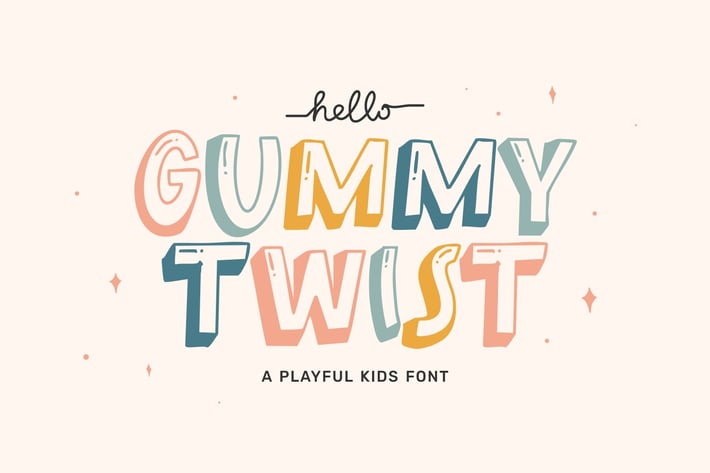
Gummy Twist - Hand Drawn Playful Font
GUMMY TWIST it’s got a hand drawn, playful vibe, specifically designed for children's projects. Think of it as a bold marker scrawl you might see in a scrapbook, but polished enough to look pro. Perfect for motivational quotes, journals, or any design that needs a pop of cheerful energy.
It’s definitely a go to choice if you want a cheerful, kid friendly, and super inviting look, making it ideal for books, advertisements, advertising, branding, posters, banners, product designs, art quotes, stickers, mugs, special events, product packaging or any kid focused content.